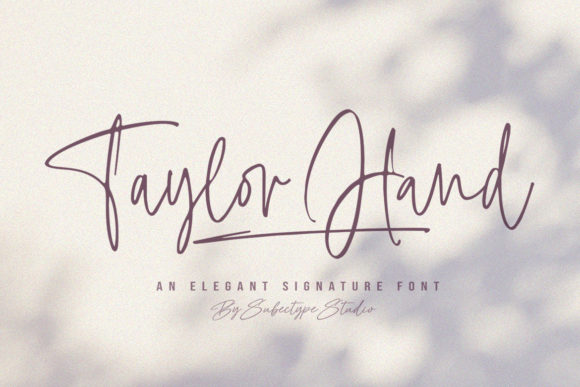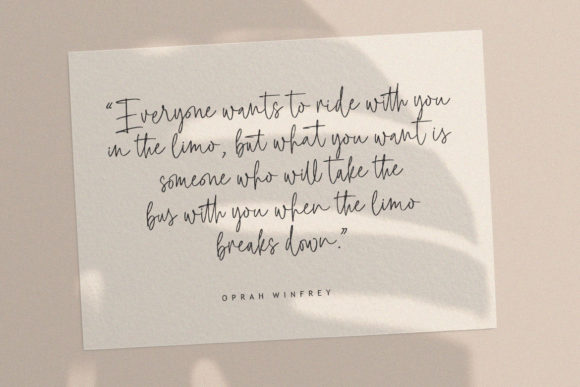
Taylor Hand Font
db-ku.com - Script & Handwritten -- Taylor Hand feels equally elegant and unique. It looks lovely on wedding invitations, thank you cards, quotes, greeting cards, logos, business cards and every other design which needs a handwritten touch.